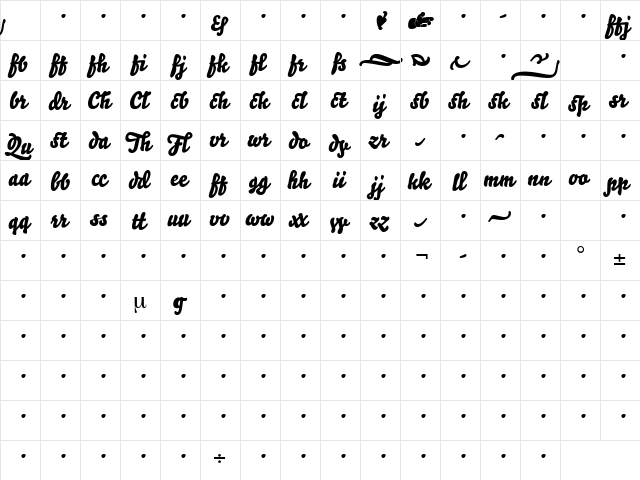
Bello Script Ligatures
Design Context for Bello Typeface
Bello brings a calligraphic fluidity to the page — its connecting strokes and expressive curves give it an unmistakably human quality.
Font Pairing: Combine Bello with a simple geometric sans for maximum contrast — the tension between flowing curves and clean structure is a classic typographic pairing.
Pro Tip: Pair Bello with a clean sans-serif for supporting text. The contrast between fluid script and geometric structure creates an elegant typographic hierarchy.